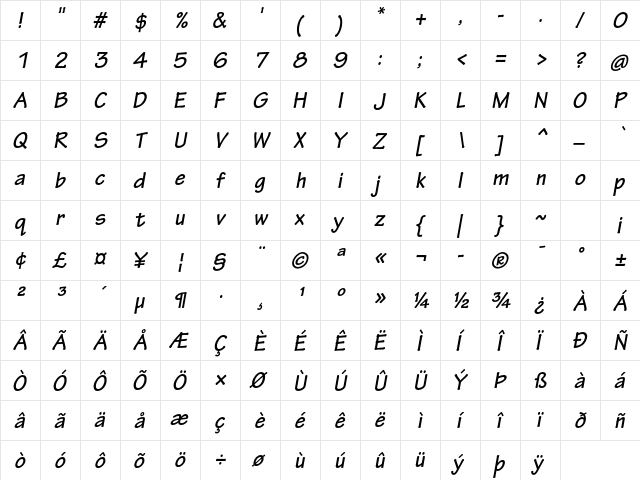
Tekton Pro Bold Oblique
| Style | Bold Oblique |
| Designer | David Siegel |
Design Context for Tekton Pro Typeface
Tekton Pro offers clean, dependable letterforms without strong stylistic allegiance, making it a practical choice for designers who need flexibility. The dynamic lean of this cut emphasises speed and emphasis in any layout. The heavy weight commands attention and anchors typographic hierarchies.
Pro Tip: Try Tekton Pro for annotation and caption copy alongside an upright companion — the contrast in angle creates a dynamic but ordered typographic system.